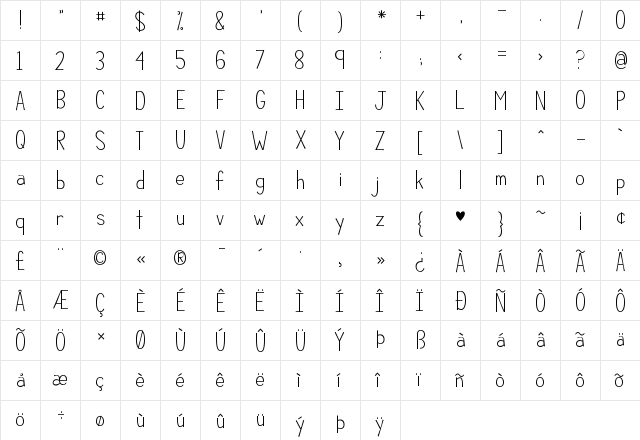
KG Compassion Simple Regular
| Foundry | Kimberly Geswein |
| Designer | Kimberly Geswein |
KG Compassion Simple is a composed and adaptable typeface that performs quietly and consistently across a wide range of design contexts.